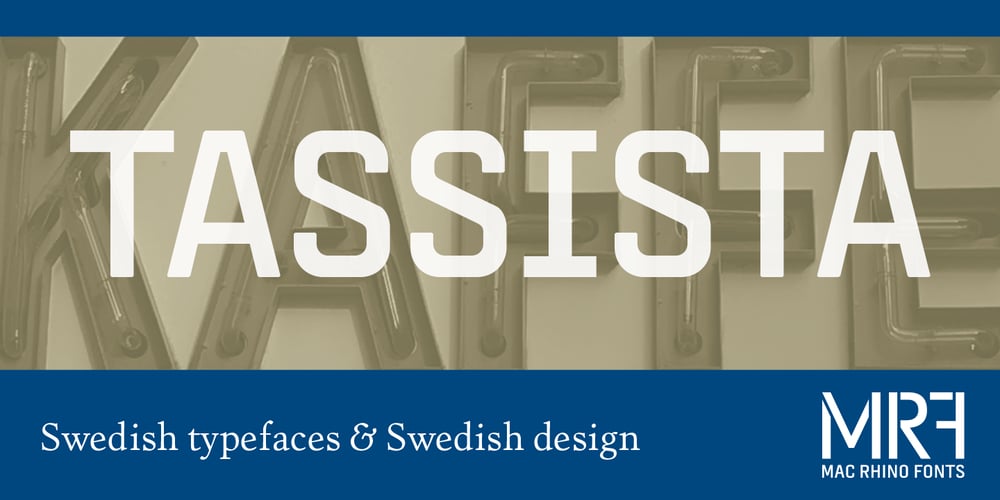
Tassista
Tassista font
Tassista Font Family was designed by Stefan Hattenbach and published by MAC Rhino Fonts. Tassista contains 1 styles and family package options. Tassista means taxi in Italian. It suits this typeface well as the source of inspiration is the closing credits from the film Taxi driver, directed by Martin Scorsese in 1976. The typeface is designed to perform especially well in smaller sizes and makes it suitable for various credit copy, footnotes etcetera, nearly always presented in minor sizes. During the designs process it seemed more logical to make small caps instead of traditional lowercases.